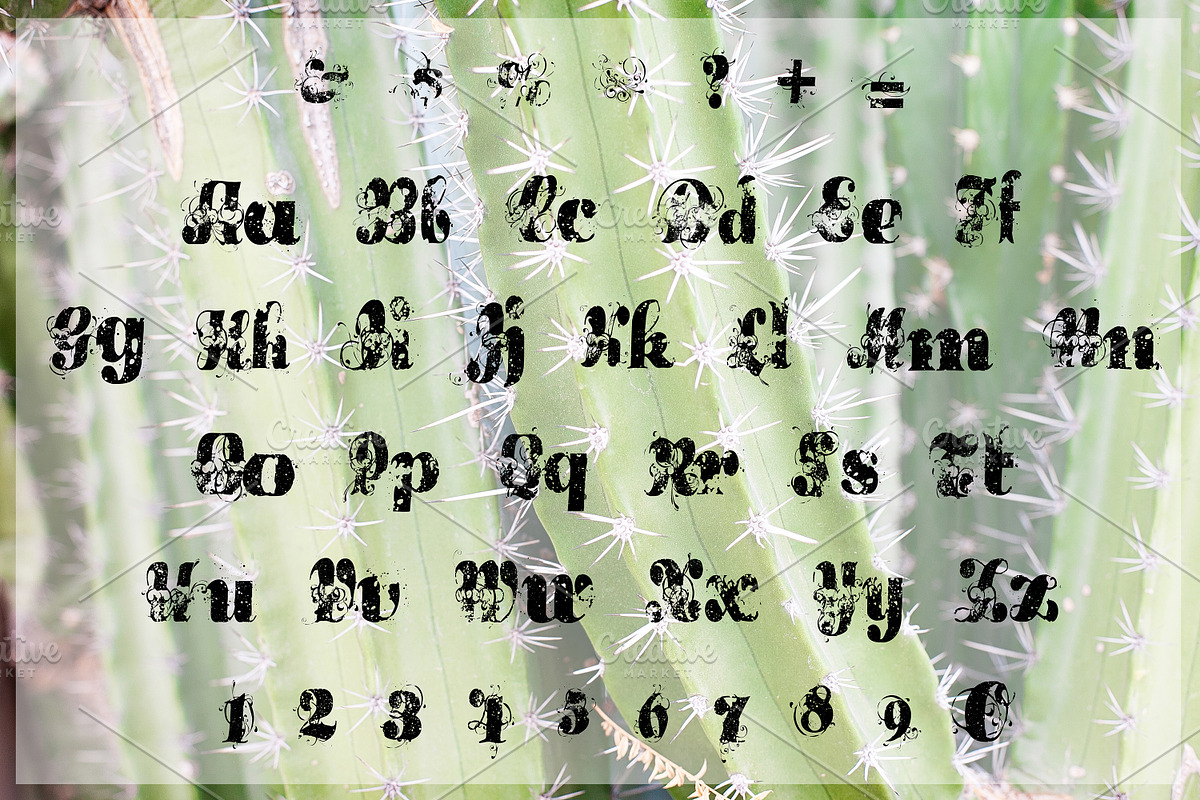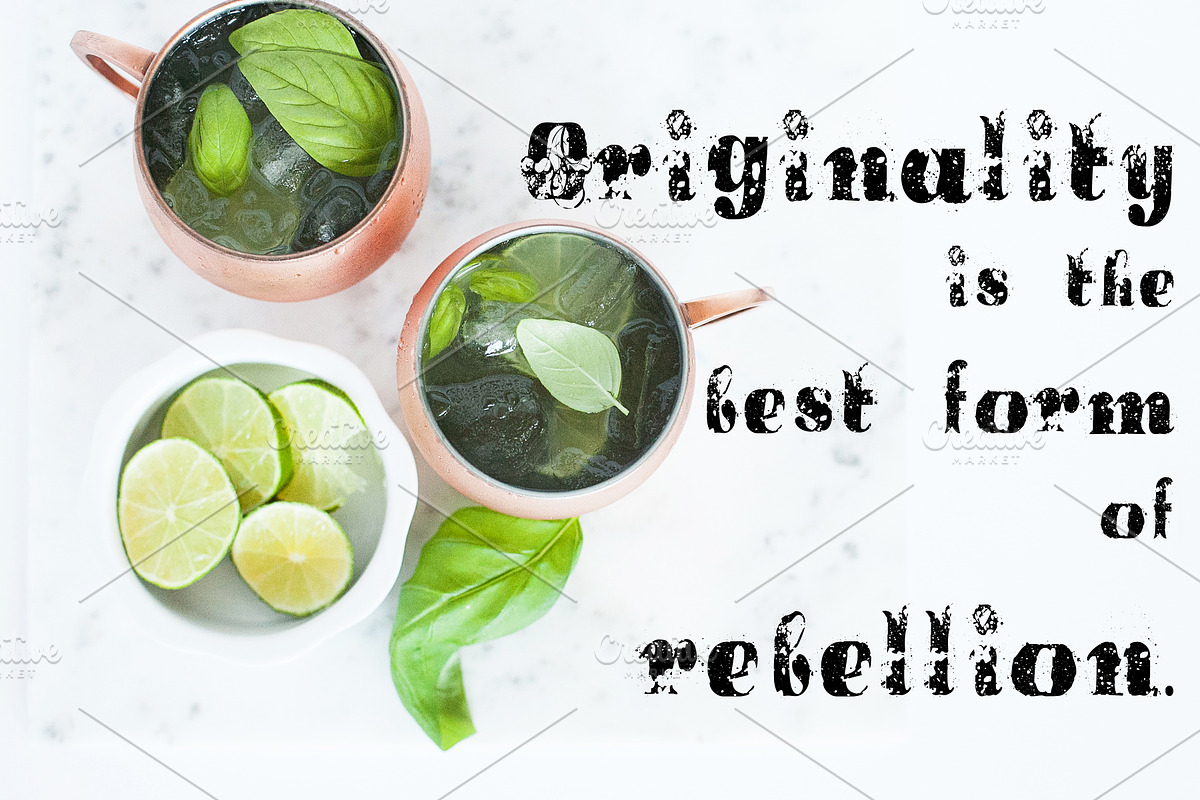
BIT O HONEY Hand Crafted Font
BIT O HONEY Hand Crafted Font by Rhonna Designs is a font selected for branding, posters, packaging, typography.
Why BIT O HONEY Hand Crafted Font is worth a look
BIT O HONEY Hand Crafted Font by Rhonna Designs fits naturally into Branding, posters, packaging, typography.